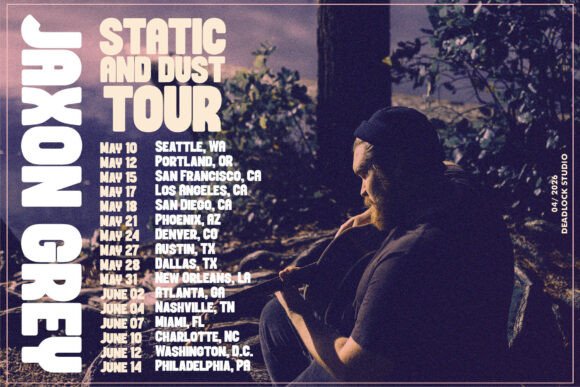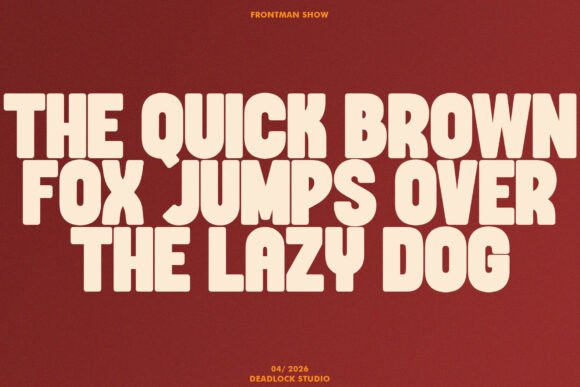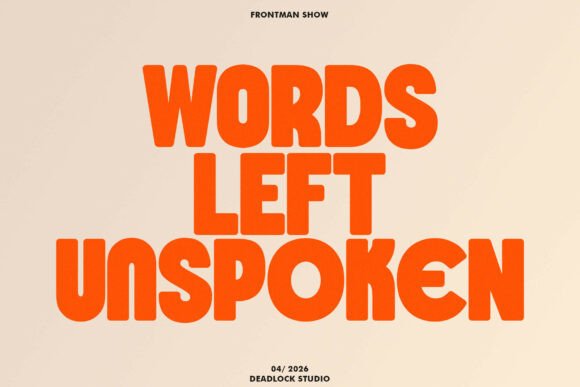
Introduction to Frontman Show Font
Introducing Frontman Show, a bold and commanding all-caps display font designed to take center stage.
With its clean, rounded edges and heavy presence, this typeface strikes the perfect balance between high-impact energy and a friendly, modern aesthetic Frontman Show is built for headlines, posters, and any project that demands a standout visual.
Key Features of Frontman Show Font
Why Choose Frontman Show Font?